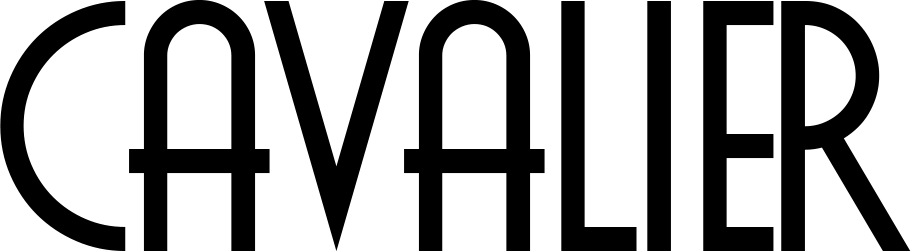
Cavalier Font
Retro texts are usually written with classy fonts. Cavalier is a typeface with two styles with simple serif-like elements that convey a calming and elegant look to the reader. You can also use this retro font for any book titles, movie titles, retro play flyers, and invitation cards. This is an all-caps American classic font.